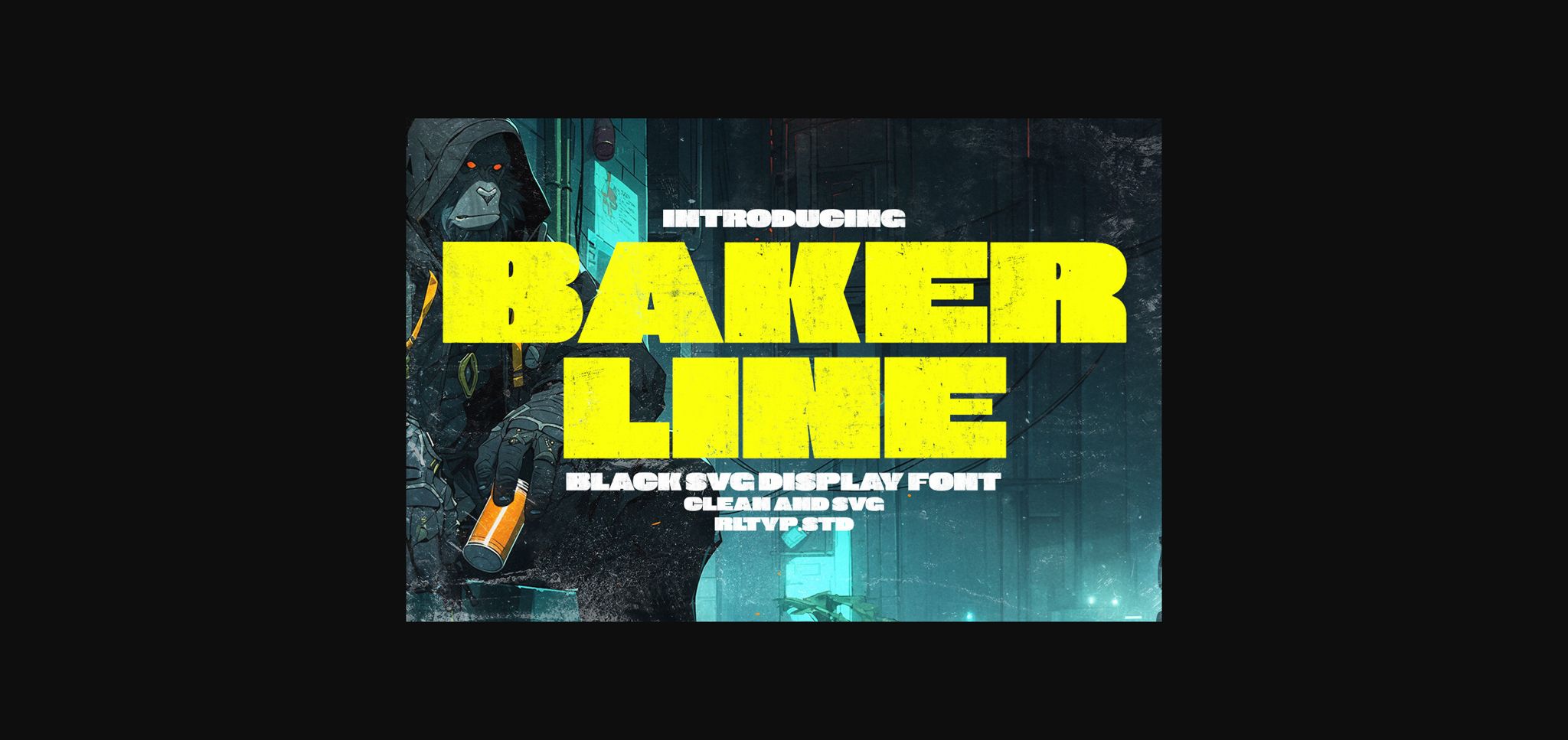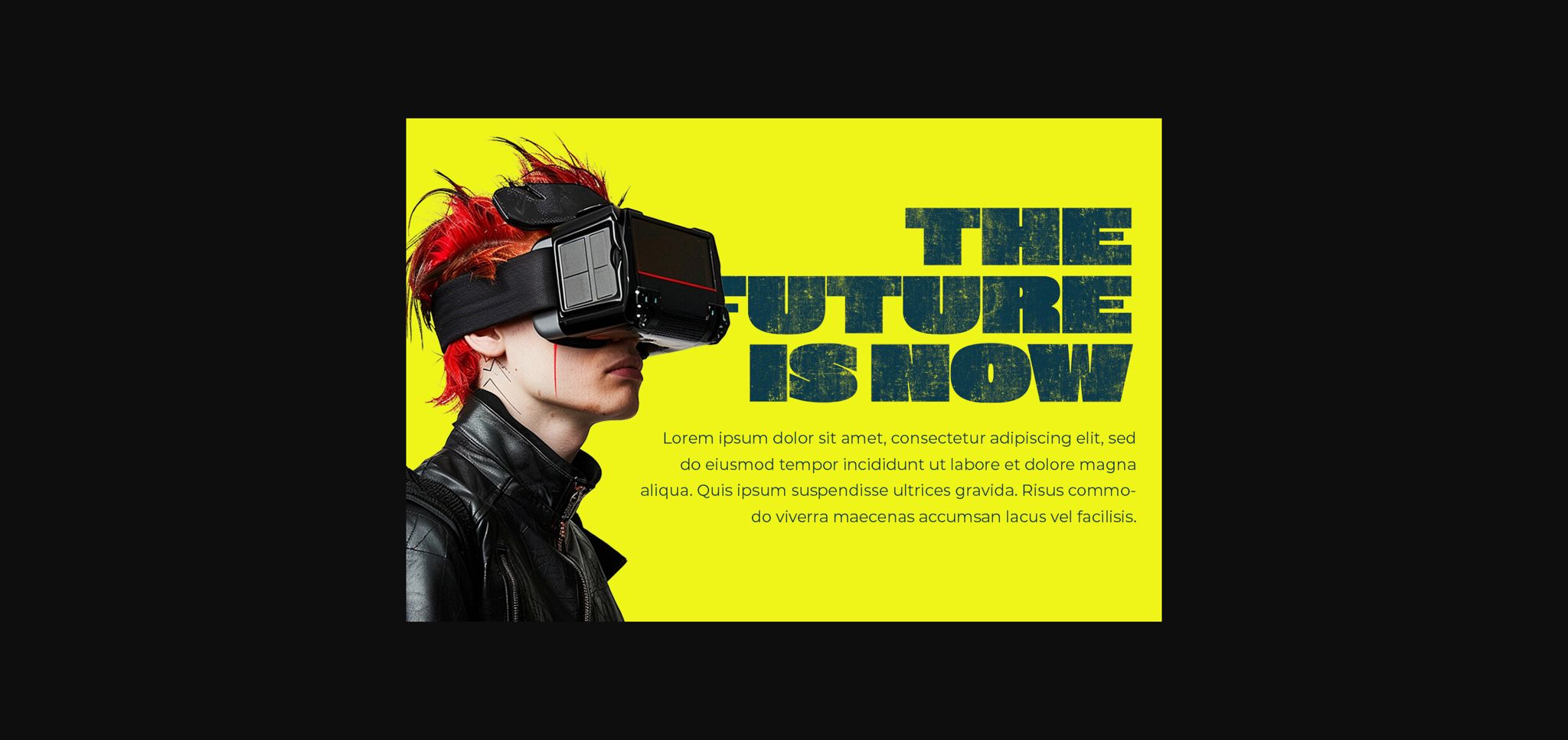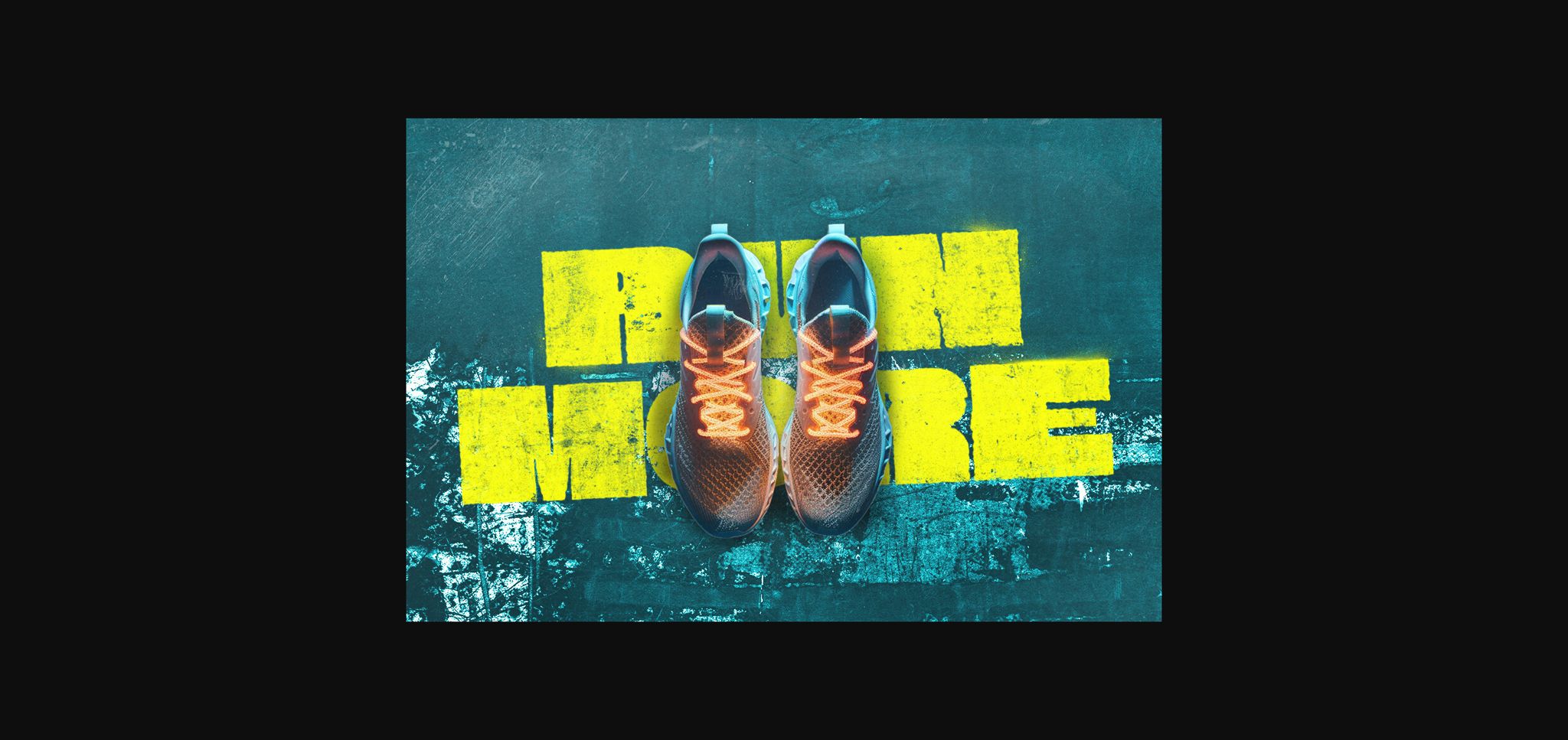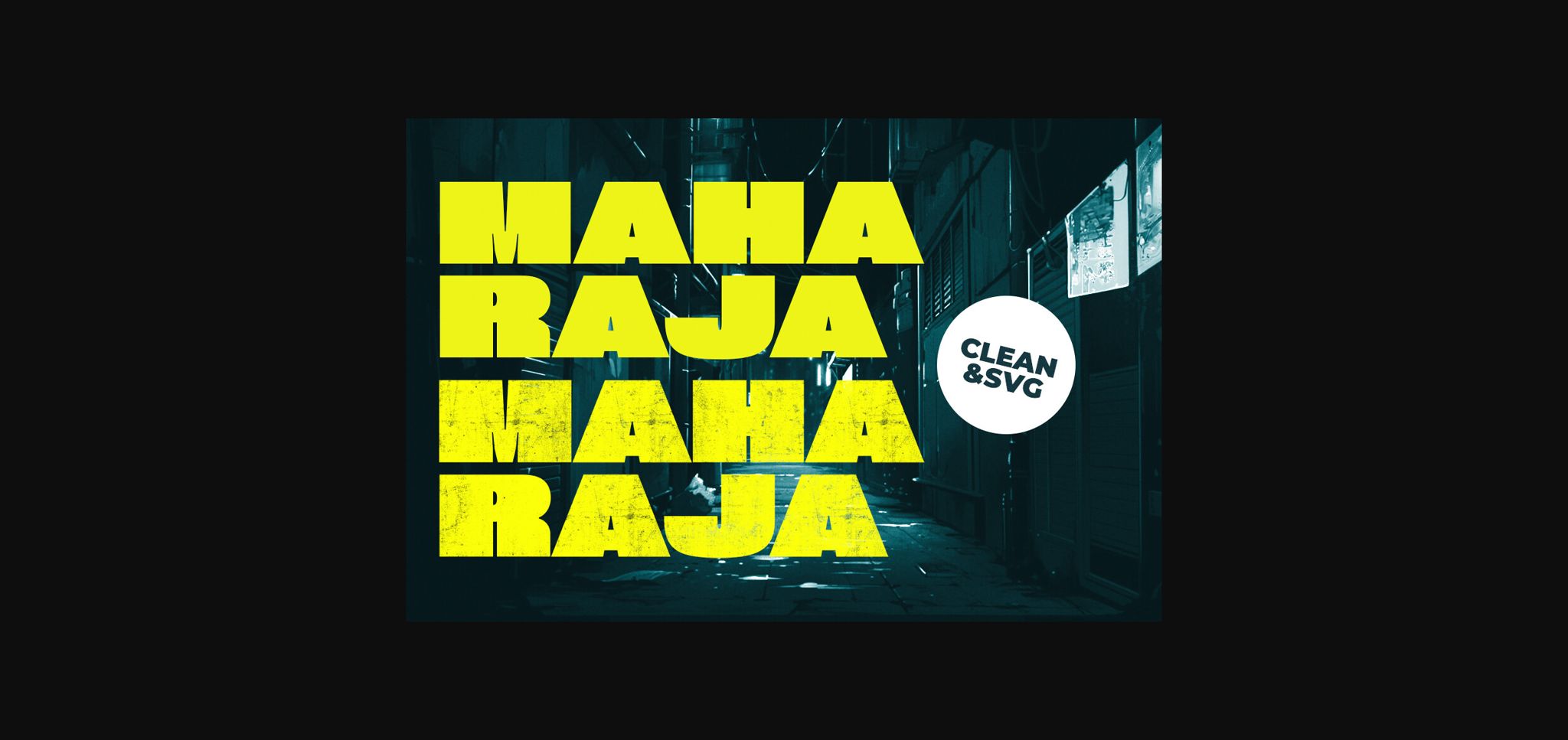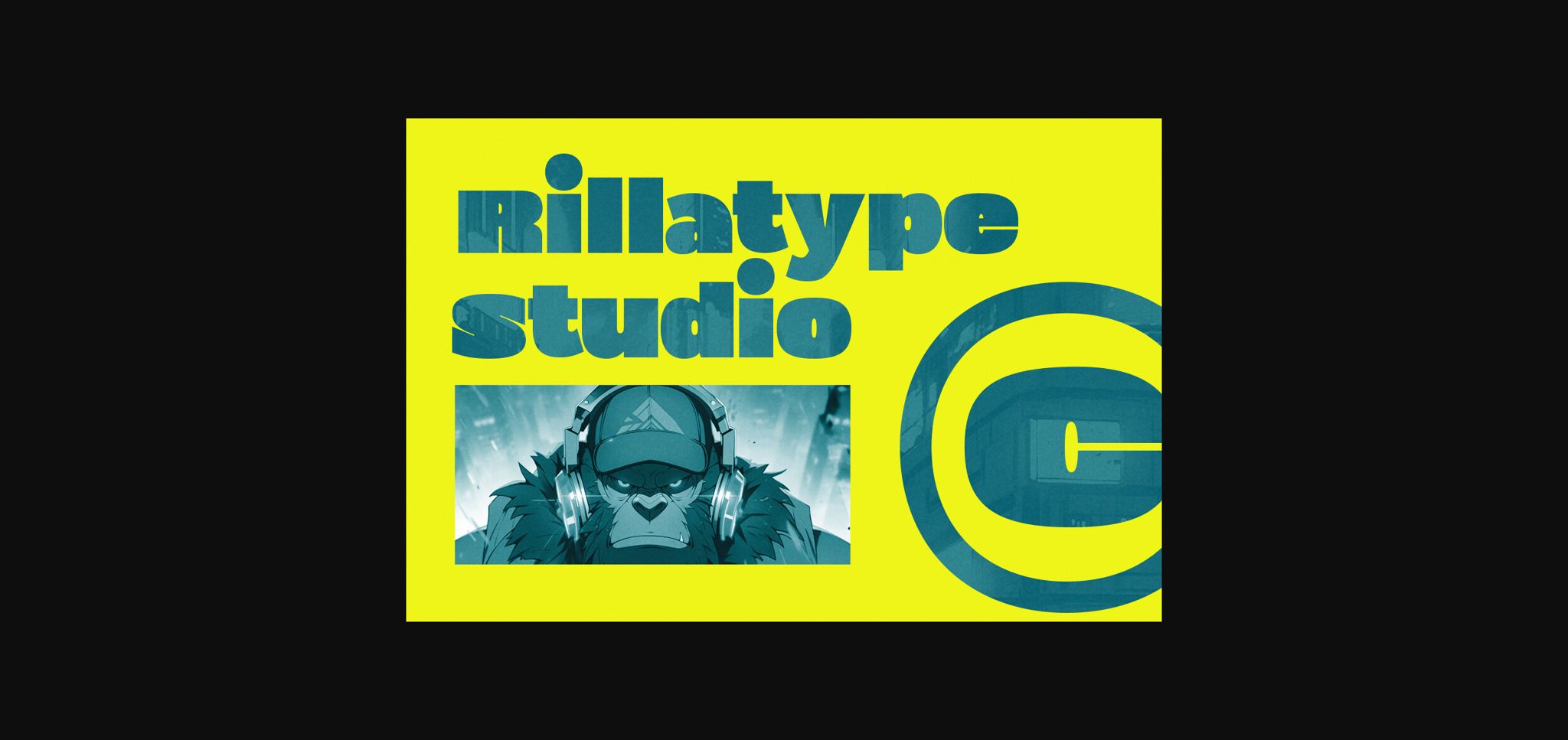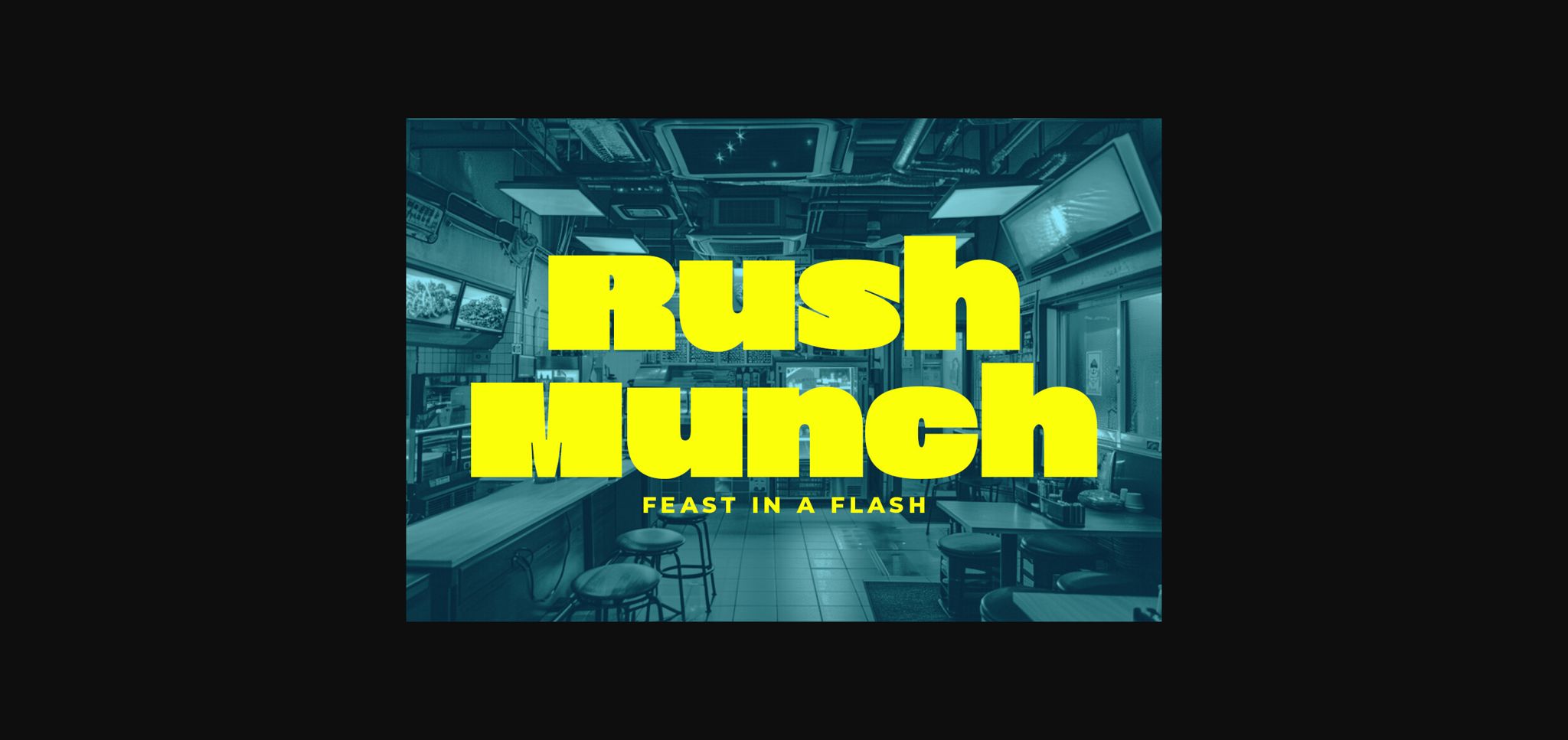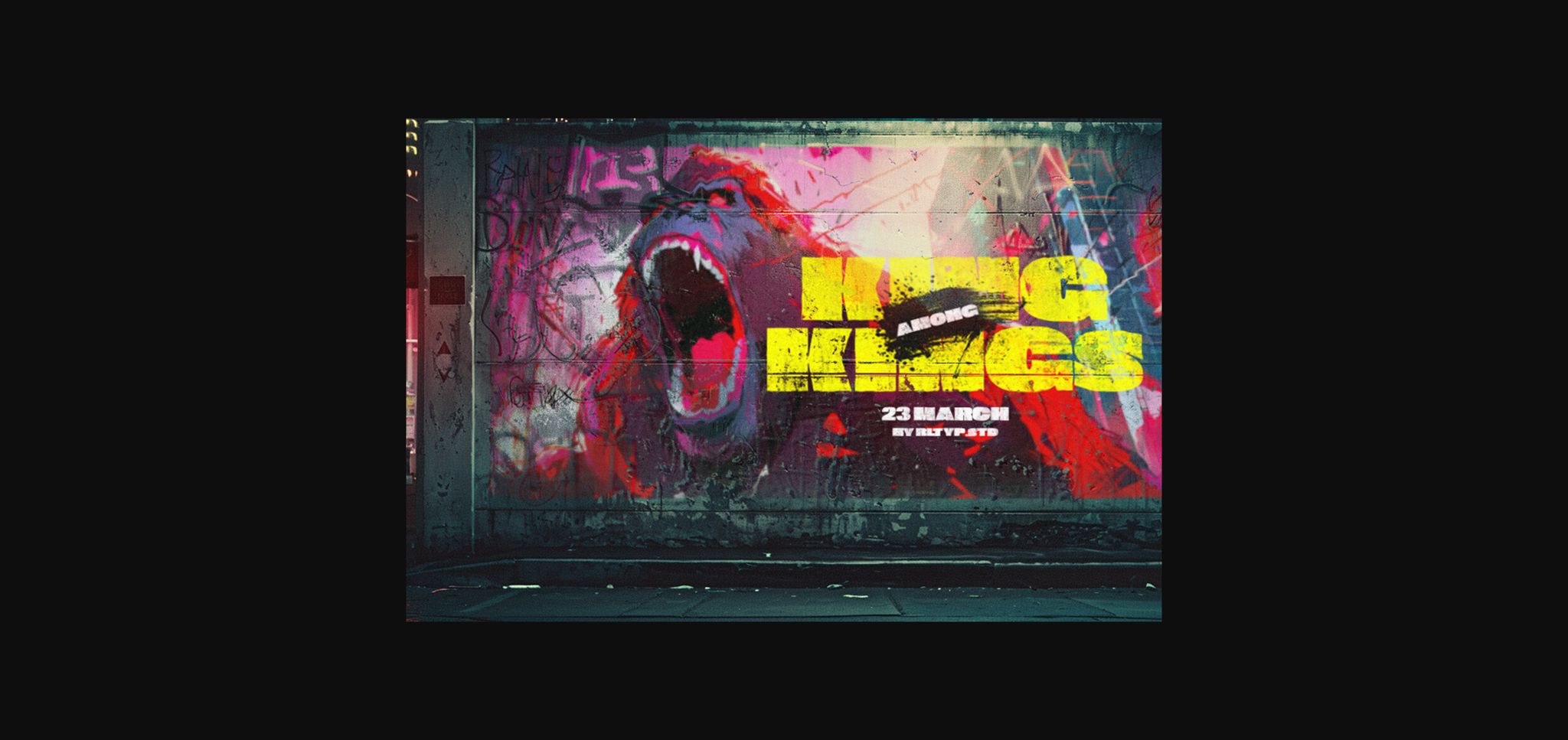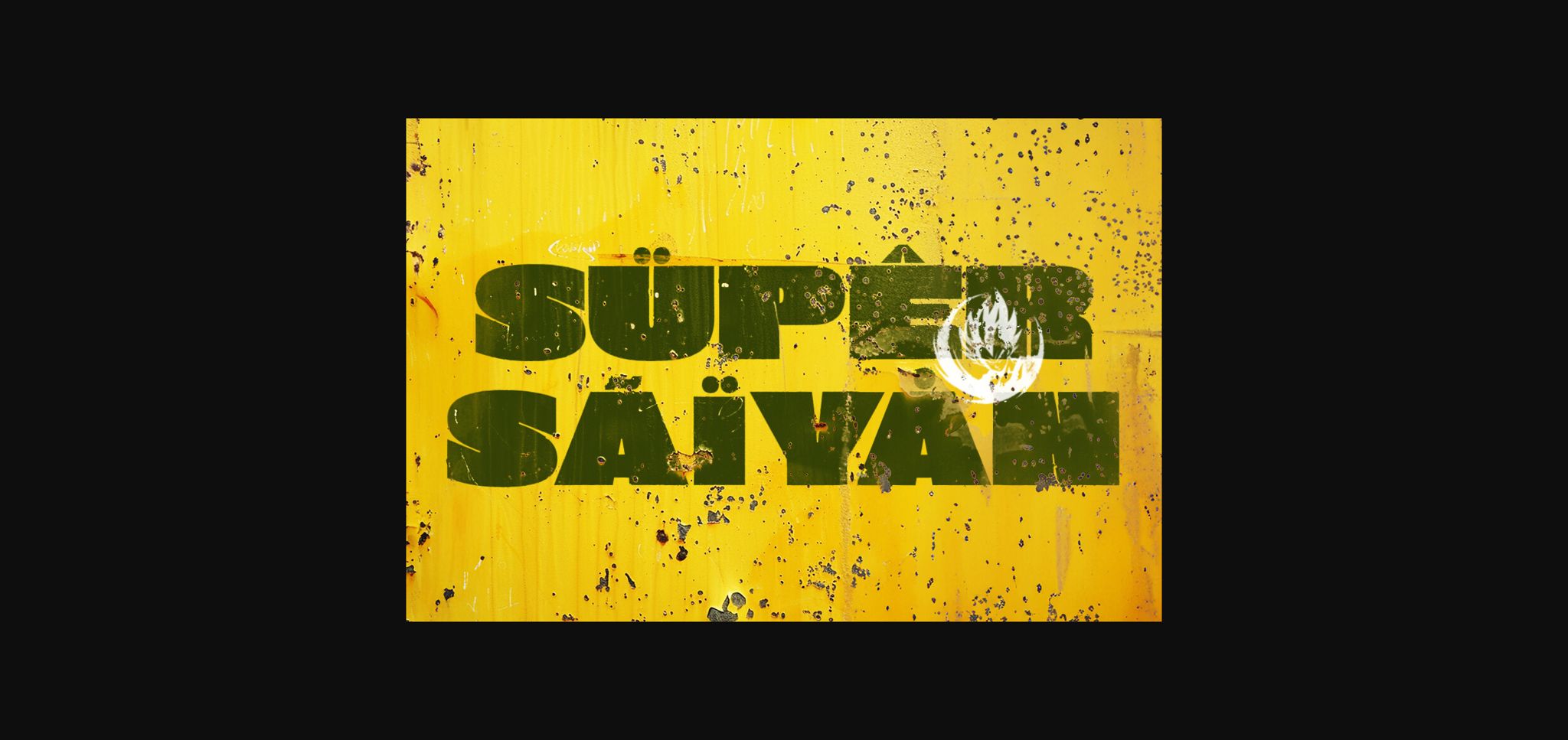
Bakerline Font
About Bakerline Font
Bakerline font is the epitome of boldness and clarity. Crafted meticulously, this sans serif typeface is available in a striking black or extra bold weight, ideal for making a powerful statement. The font comes in two distinct variations: textured SVG and solid, offering versatility in design. With its inclusion of lowercase characters, Bakerline ensures seamless integration into various creative projects, providing a modern and dynamic aesthetic.